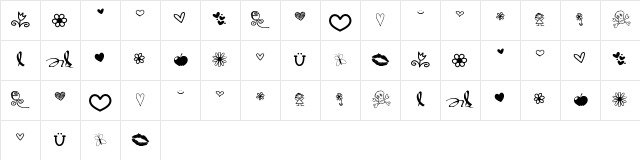
VBDings Medium Free Font
VBDings Medium
VBDings Family
Design Context for VBDings
VBDings is a composed and adaptable typeface that performs quietly and consistently across a wide range of design contexts.